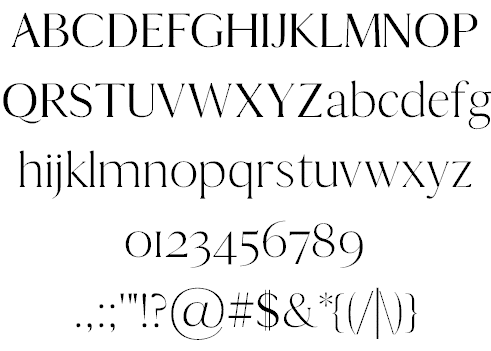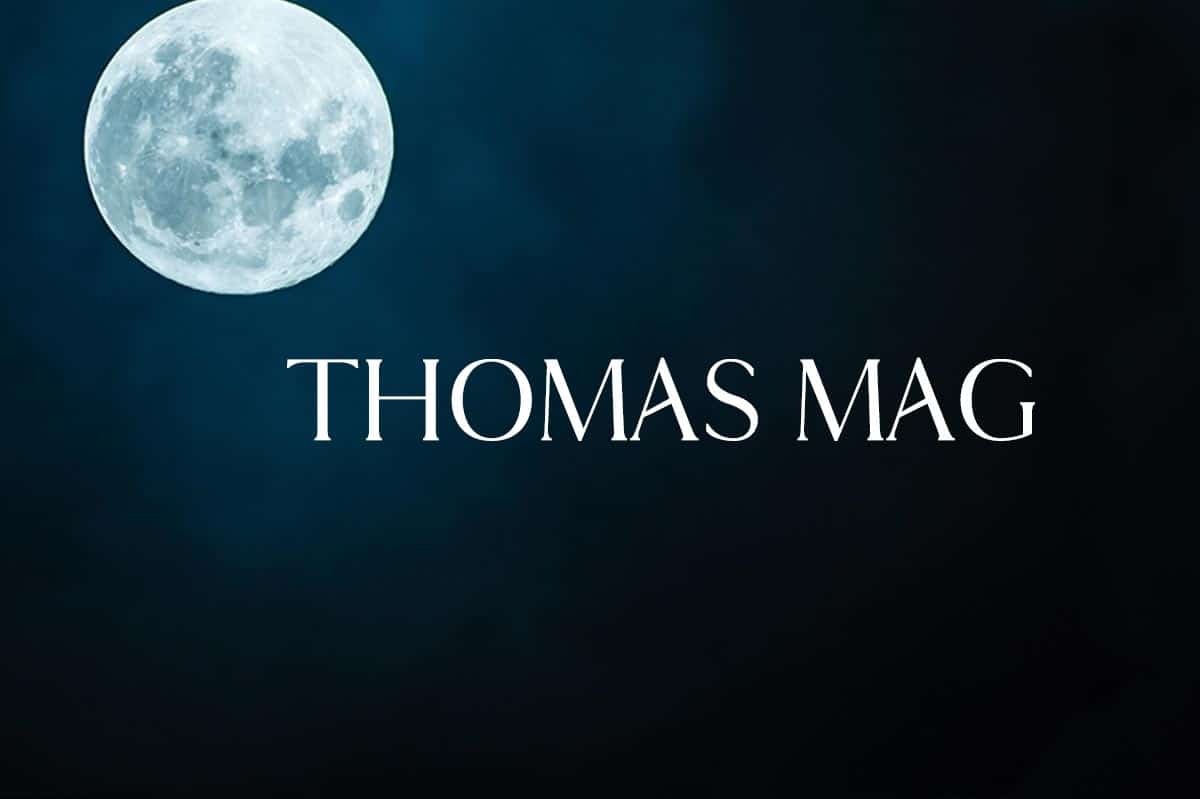
Thomas Mag is the perfect font to create sleek and elegant logo designs and headlines and. It pairs well with both script and serif fonts and features multiple weights.
- Designer: Creativetacos